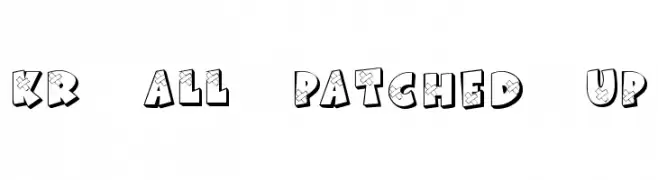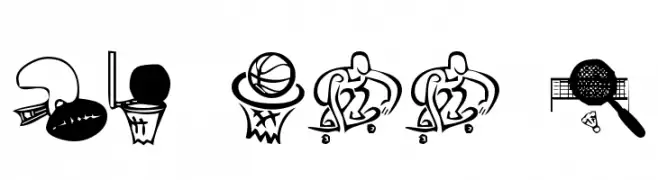
A bold, playful font with a patched-up, three-dimensional design.
A decorative font with letters inside heart shapes pierced by arrows.
A bold, festive font with candle-like accents, perfect for celebrations.
A decorative sports icon font with hand-drawn pictograms for each character.
A playful, comic-style font with bold, chunky letters and a humorous touch.
A bold, dynamic font with thick strokes and a slight slant, perfect for impactful statements.
A decorative dingbat font with harvest-themed icons.